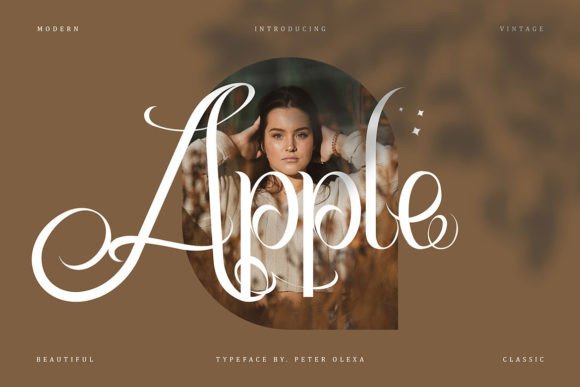
Step into the world of script fonts and discover Apple, a font that exudes elegance and charm. With its sweeping curves and delicate swashes, Apple will add a touch of timeless sophistication to your creative projects.
Crafted with precision by the renowned JumboDesign, Apple boasts a remarkable versatility that makes it perfect for a wide range of applications. Whether you're designing wedding invitations, crafting heartfelt love letters, or creating enchanting social media posts, Apple will effortlessly elevate your words.
Immerse yourself in the world of calligraphy and let Apple's beautiful curves guide your hand. Its romantic overtones make it an ideal choice for capturing life's most meaningful moments. Use Apple to pen heartfelt notes, create personalized cards, or design captivating logos that reflect your unique personality.
With Apple, the possibilities are infinite. Its flawless execution and attention to detail will make your designs shine. Its retro charm adds a touch of nostalgia, while its modern sensibilities keep it current and relevant. Whether you're a professional designer or a creative enthusiast, Apple will unlock your imagination and transform your designs into works of art.